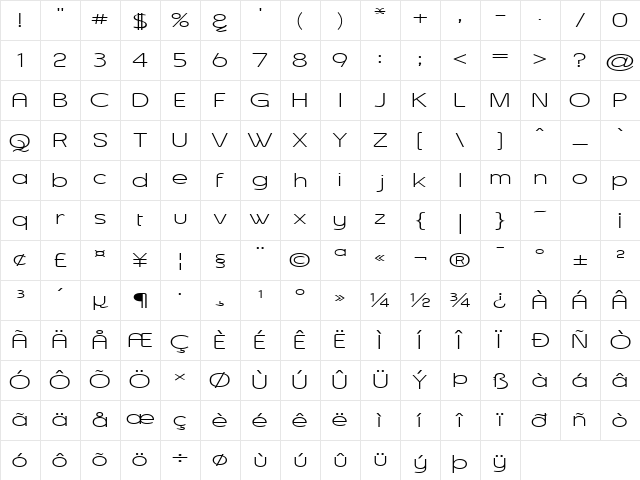
Asenine Wide Regular
Designer: Graham Meade
Design Context for Asenine Wide
Asenine Wide is a composed and adaptable typeface that performs quietly and consistently across a wide range of design contexts.